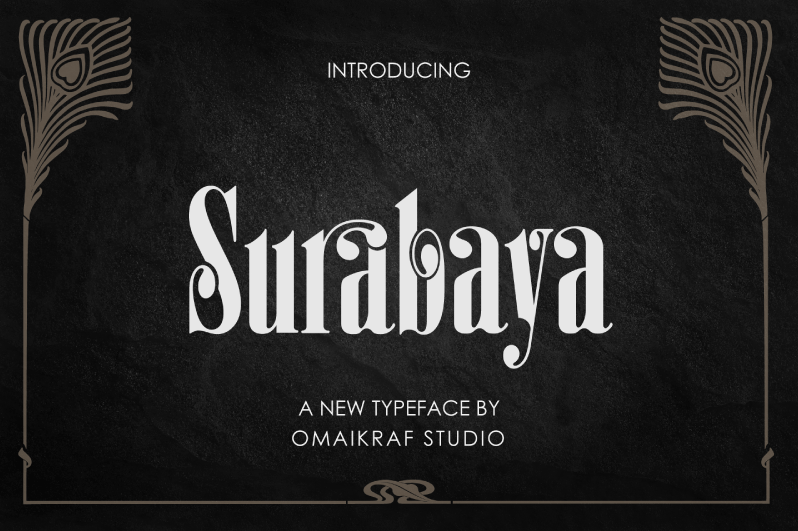
Font name: | Surabaya |
Author: | Omaikraf Studio |
Surabaya is one and only typeface that is built to bring the classic nobility in a modern lifestyle. This font is suitable for branding, films, letterings, occasions, and other related activities. ======================================================== This is demo version, completed glyphs available in full version. ======================================================== Please contact us for licensing. Should you need help with the typeface, or would like to request a new feature, just send us message and we'll be glad to help. |